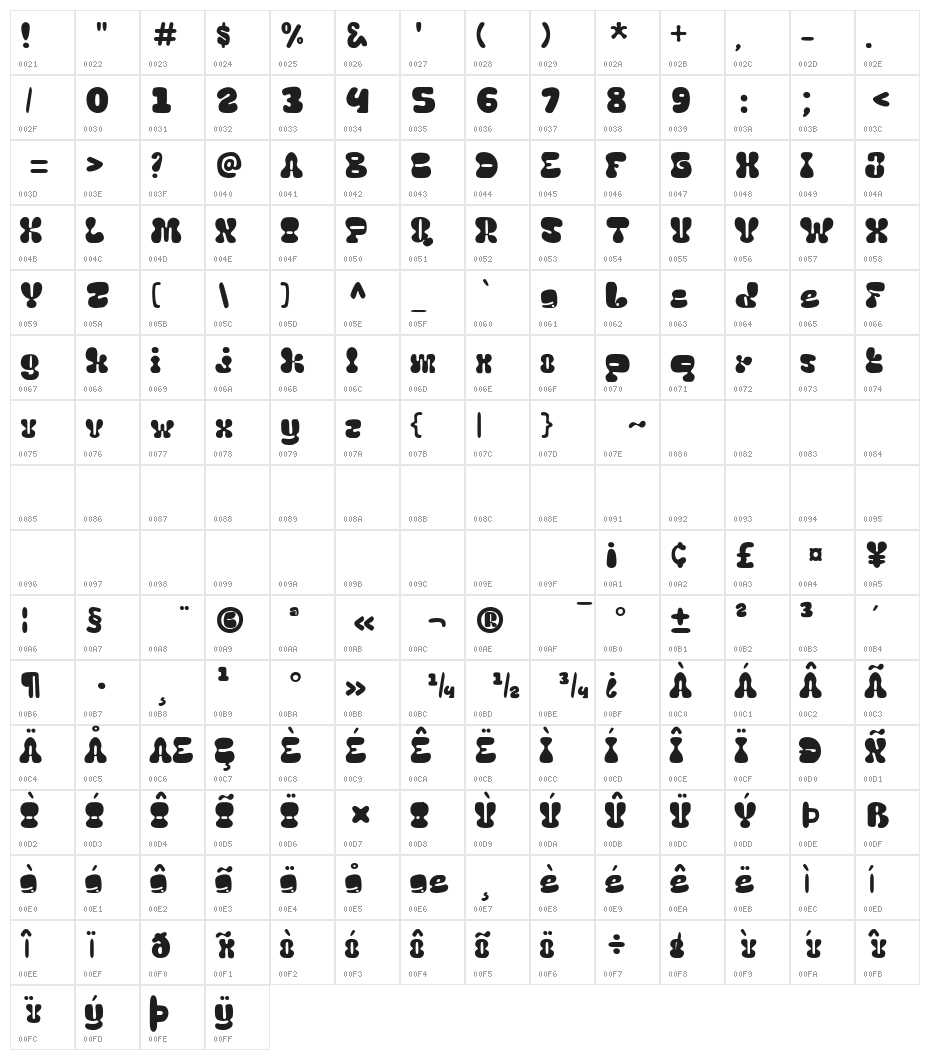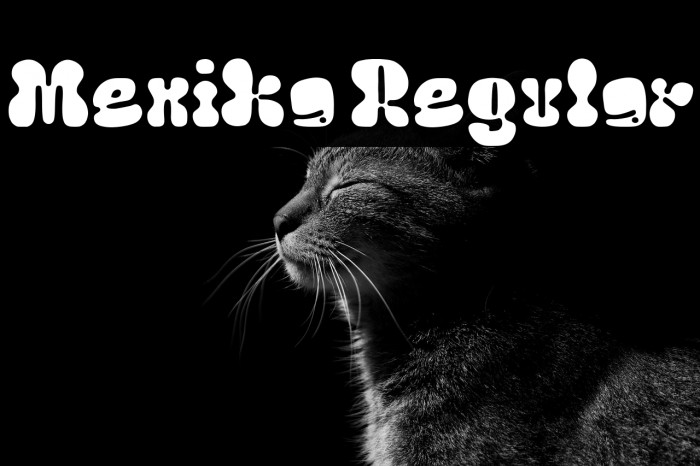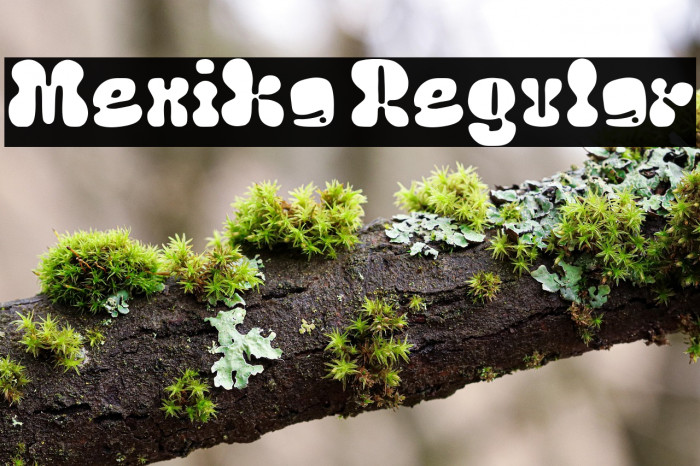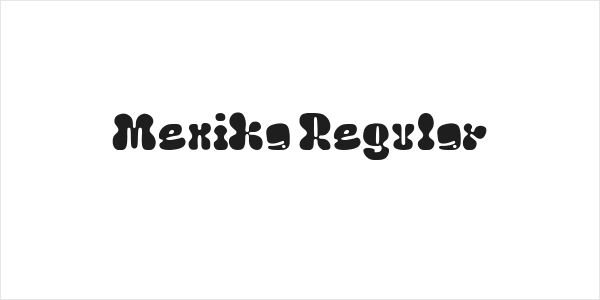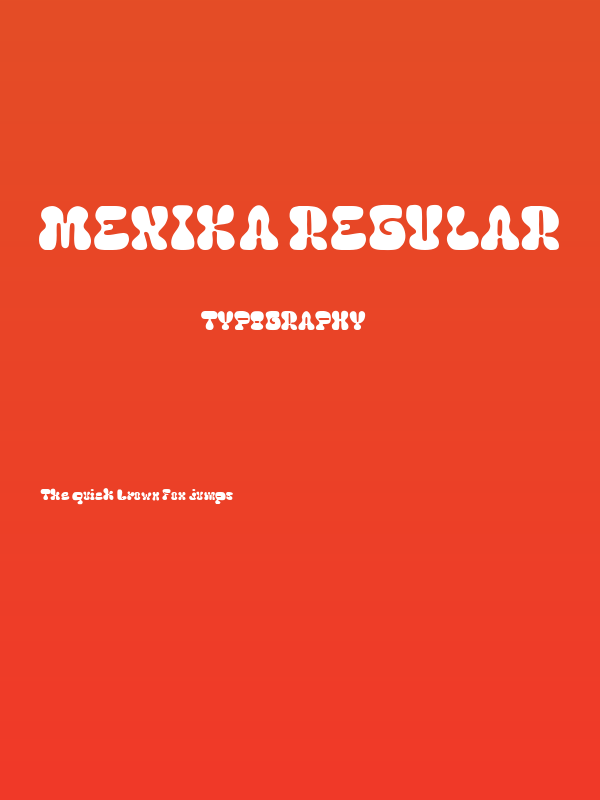
Menika Regular Font
This font features a bold and playful design with rounded, bubble-like characters that create a sense of fun and whimsy. The letters are thick and substantial, with a consistent stroke width that gives the font a cohesive look. The overall appearance is reminiscent of retro or vintage styles, yet it maintains a modern flair. The characters are closely spaced, enhancing the compact and chunky feel of the font. Its unique style makes it stand out, making it ideal for creative and eye-catching designs.
| Overall Style | Playful, Retro, Modern |
| Proposed Projects | Ideal for children's book covers, playful branding, party invitations, and retro-themed posters. |